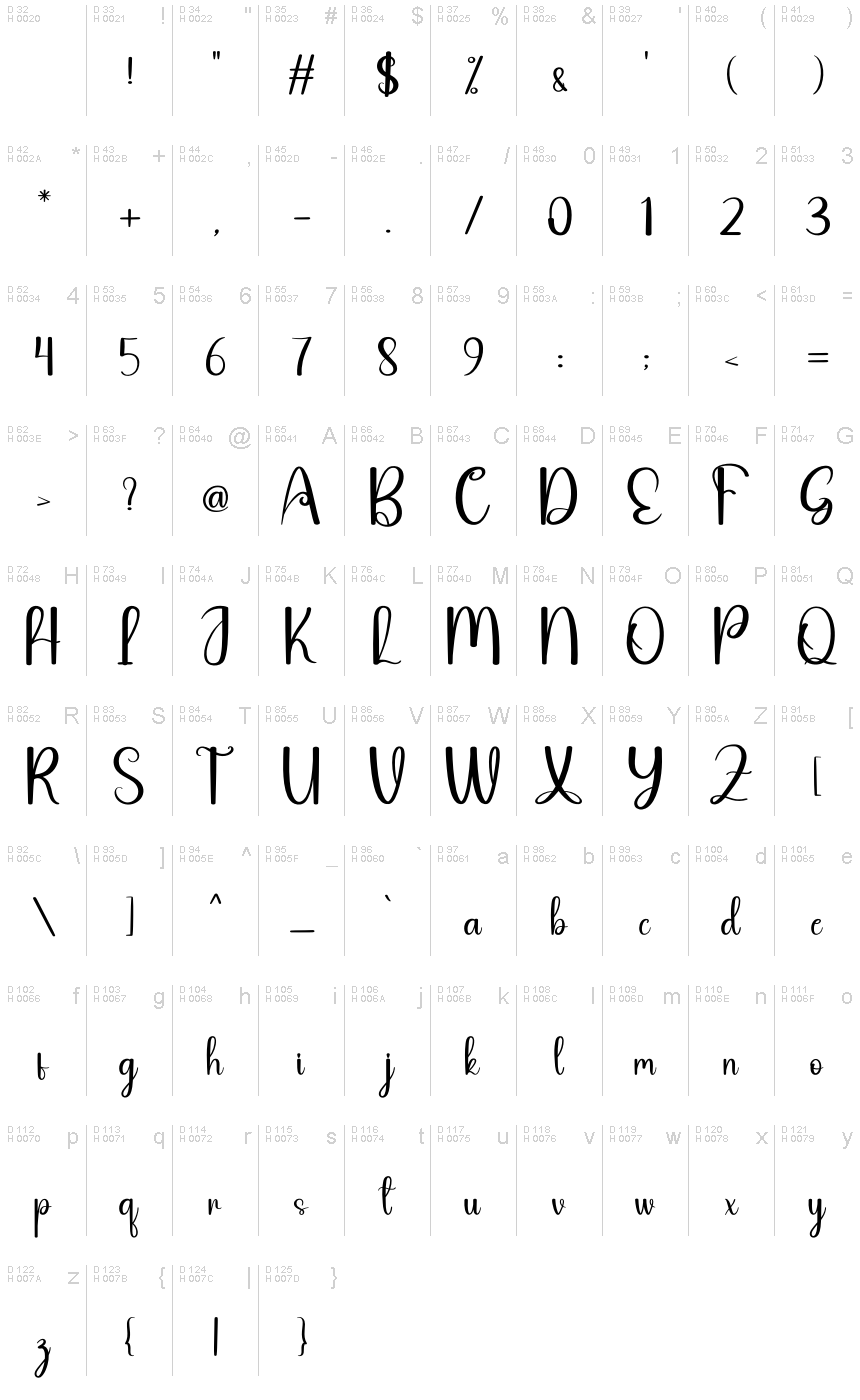
Bulk
Bulk is a captivating handwritten font designed by Andi Moz. Its free-flowing, organic strokes exude a sense of effortless charm and individuality.
The irregular, expressive forms lend the font a distinct character, evoking a hand-crafted, artisanal aesthetic. Bulk's dynamic style makes it an excellent choice for a wide range of design applications, from editorial layouts and branding to packaging and event collateral. Its versatility allows it to seamlessly integrate into both modern and vintage-inspired design schemes.
Whether used as a statement piece or as a complementary accent, Bulk's unique personality is sure to leave a lasting impression on your audience.